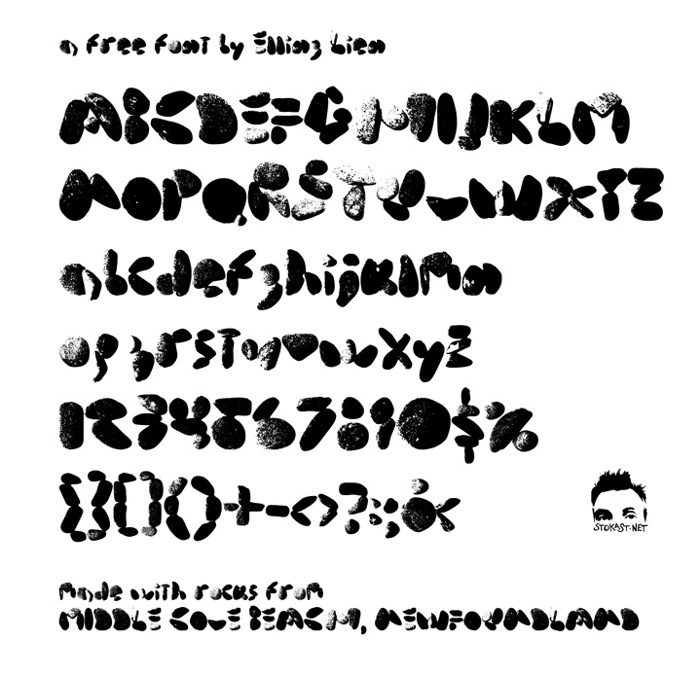
middle cove beach rocks Font
Glyphs made with rocks from Middle Cove Beach in Newfoundland and Labrador, Canada.
Cool! I love the counterless approach and how you used all the characters